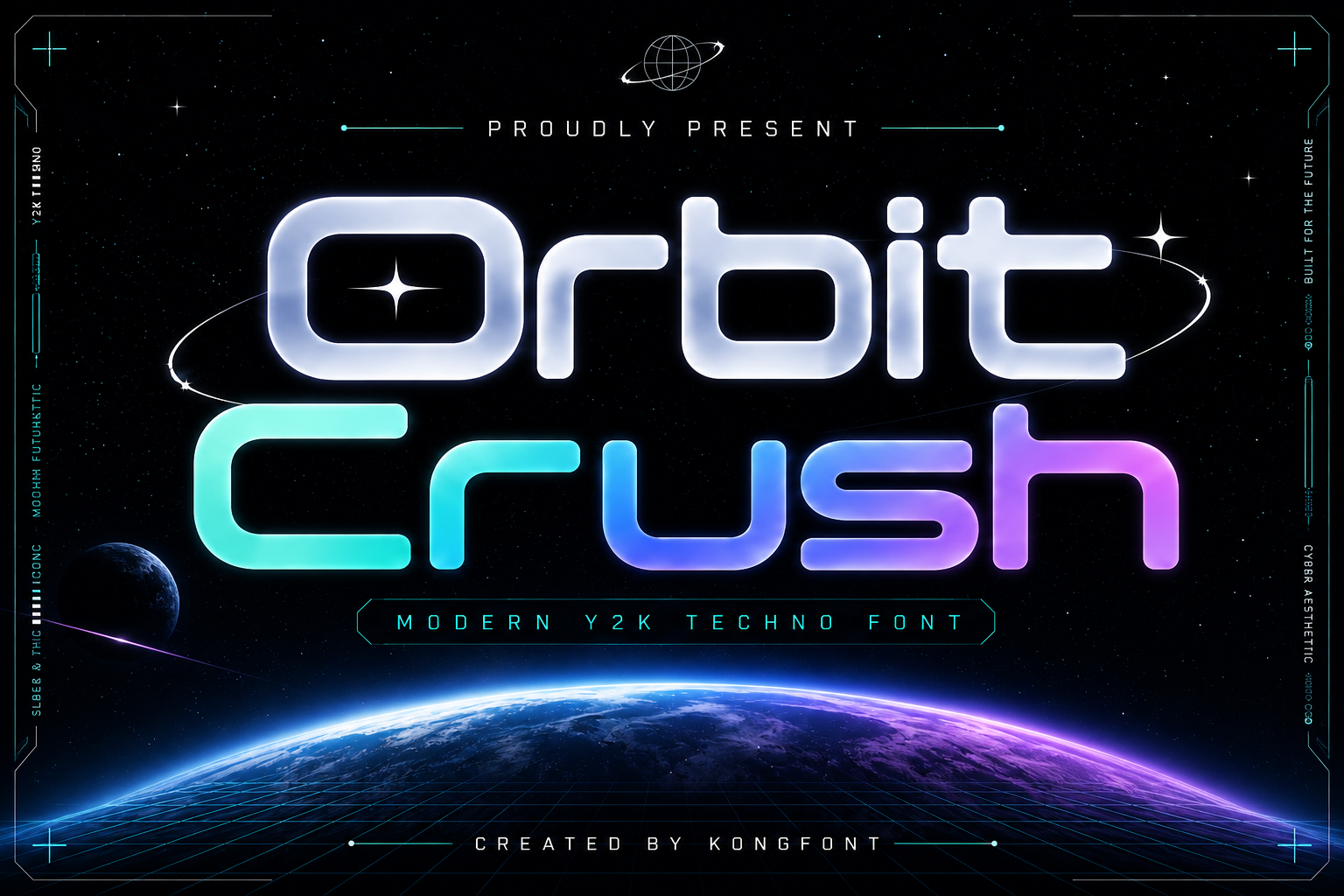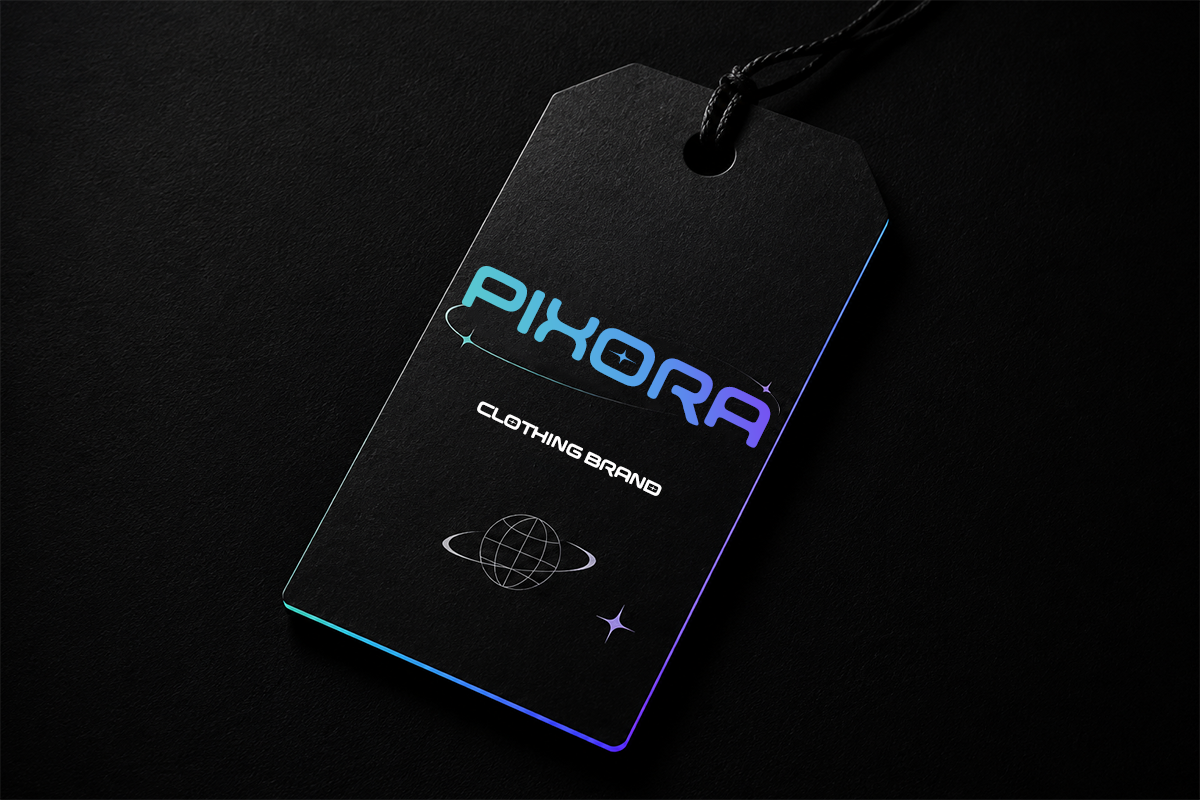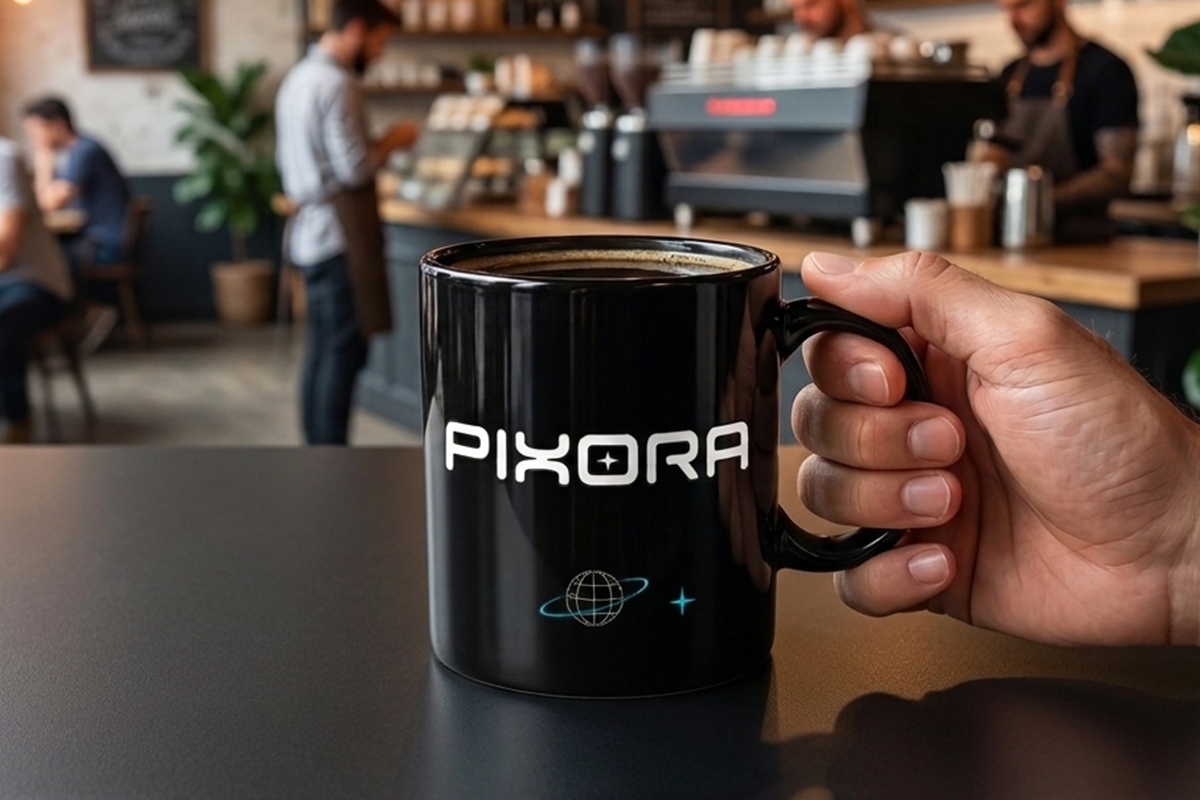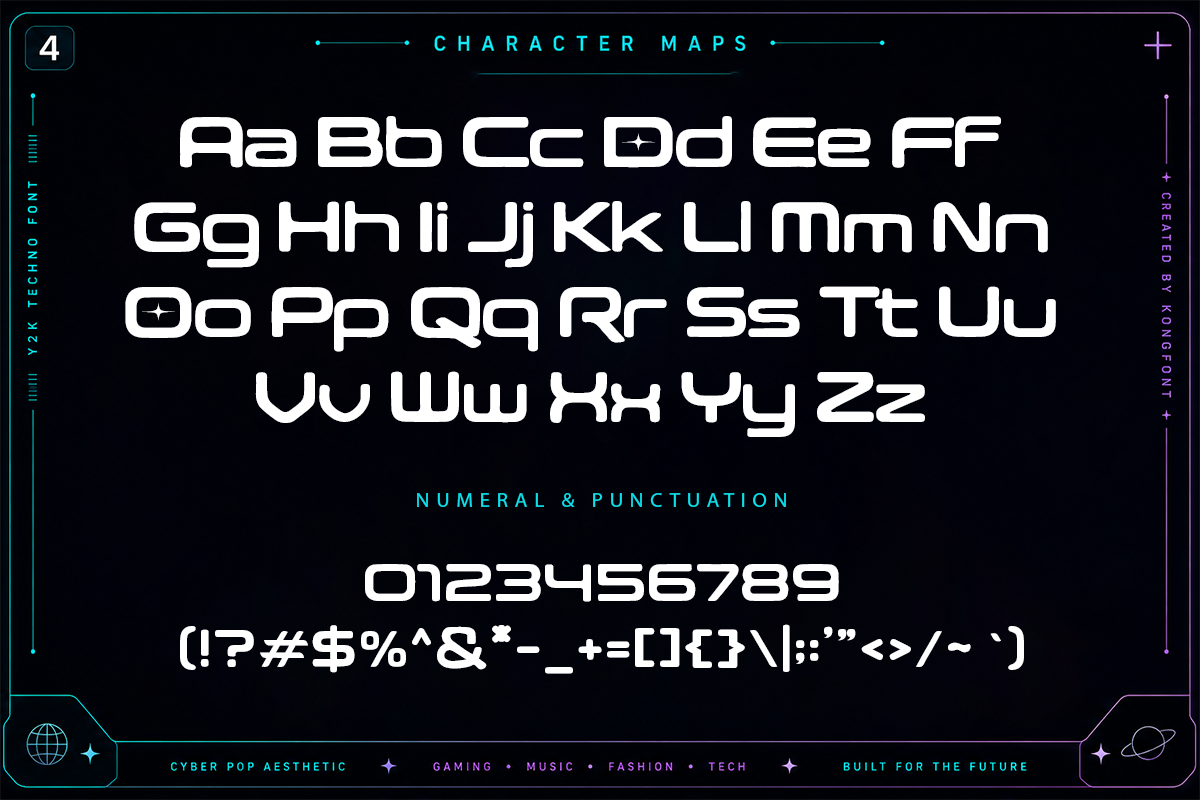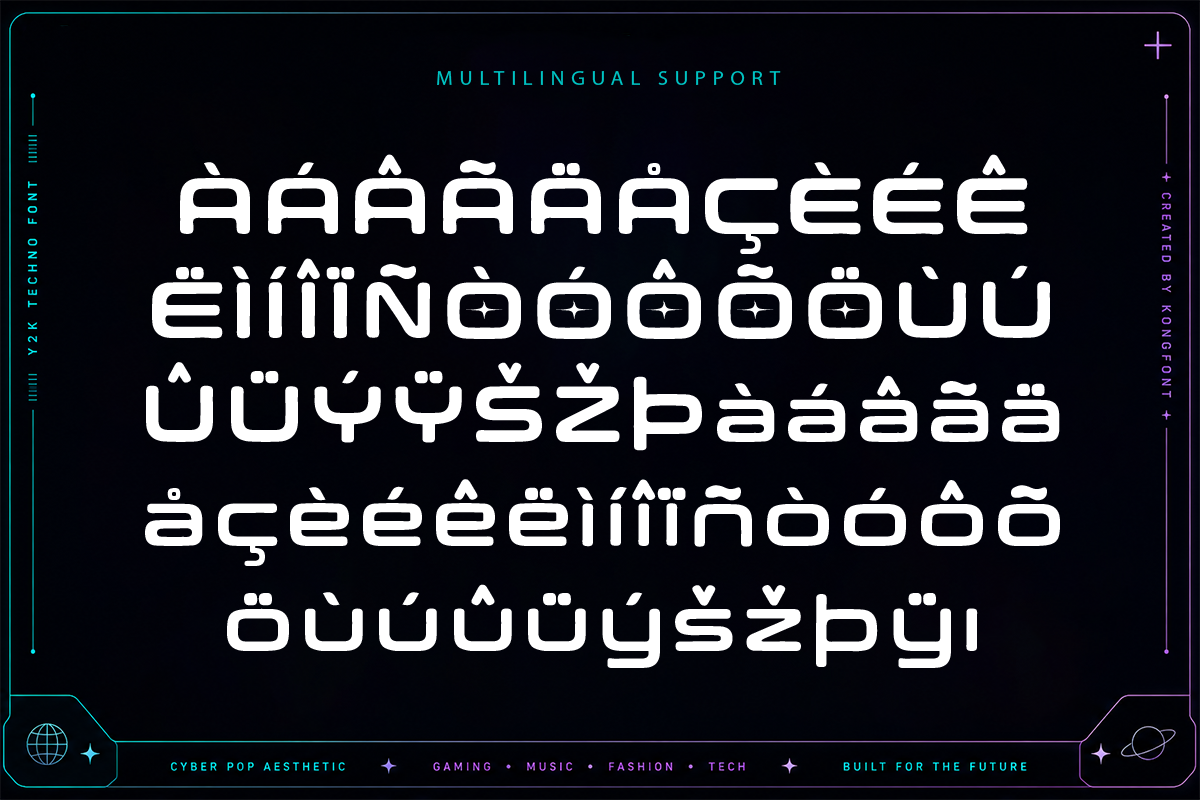
Orbit Crush A Modern Display Y2K Font
Orbit Crush A Modern Display Y2K Font is a sleek and nostalgic display font that captures the essence of the early digital era through a modern Y2K lens. Designed with smooth rounded terminals, geometric curves, and a futuristic silhouette, this typeface blends retro-tech aesthetics with contemporary clarity.
Inspired by glowing interfaces, cyber optimism, space-age visuals, and the iconic internet culture of the late 90s and early 2000s, Orbit Crush A Modern Display Y2K Font brings a unique balance between softness and technology. Its clean yet expressive character shapes make it perfect for projects that demand both futuristic energy and approachable charm.
Whether you're creating Y2K-inspired branding, fashion graphics, music covers, posters, social media content, gaming assets, tech products, or nostalgic digital artwork, Orbit Crush A Modern Display Y2K Font delivers a bold visual identity that instantly stands out.